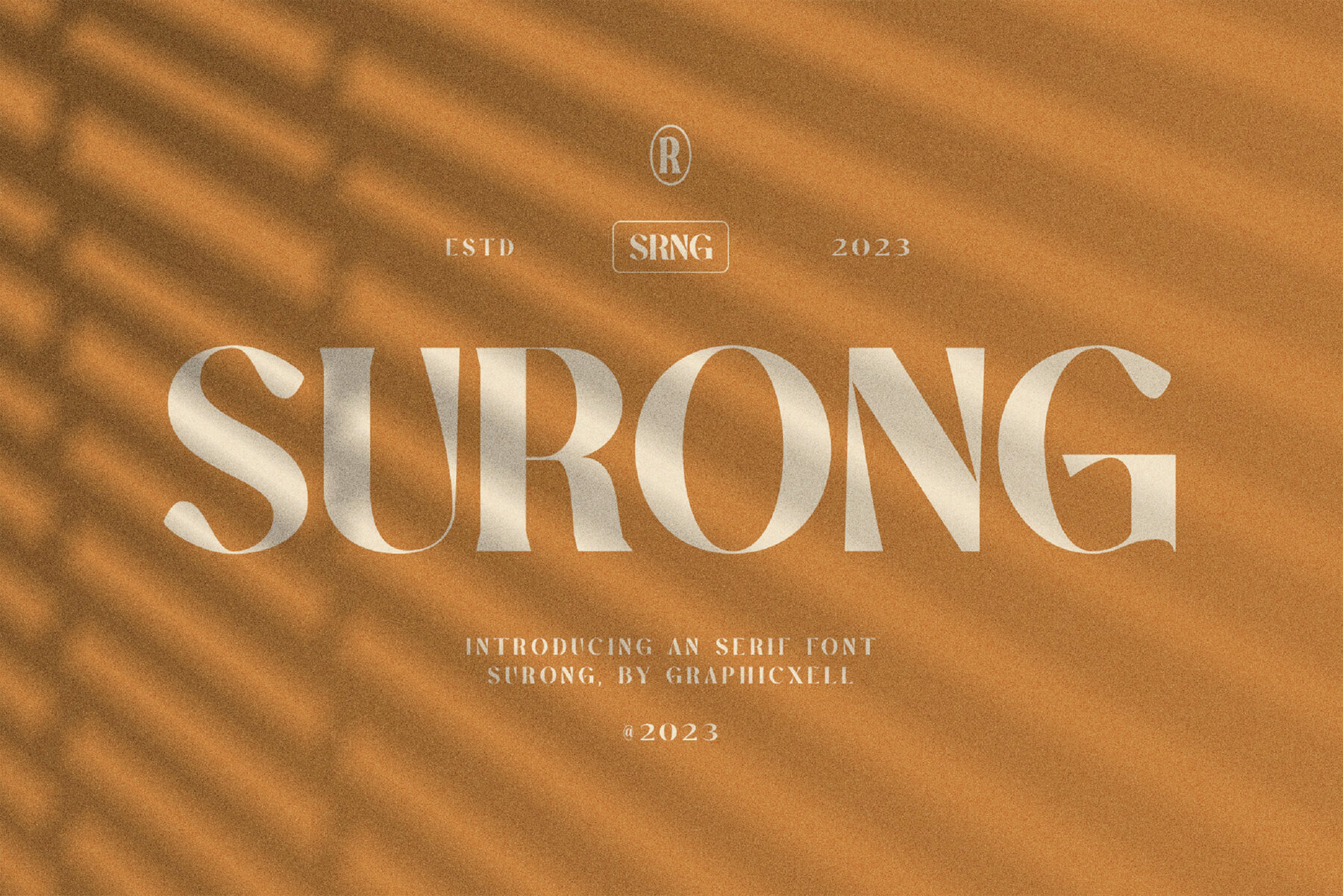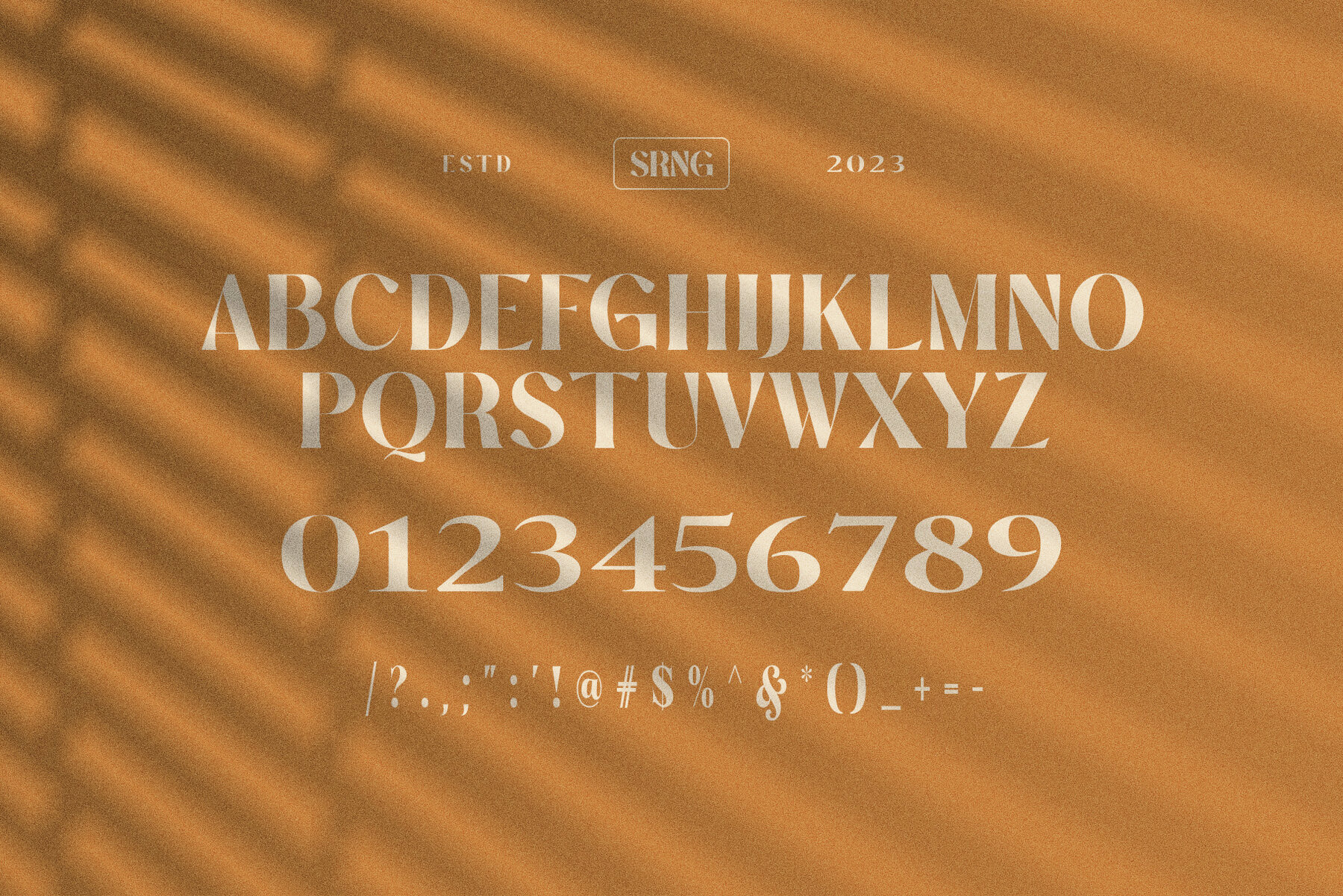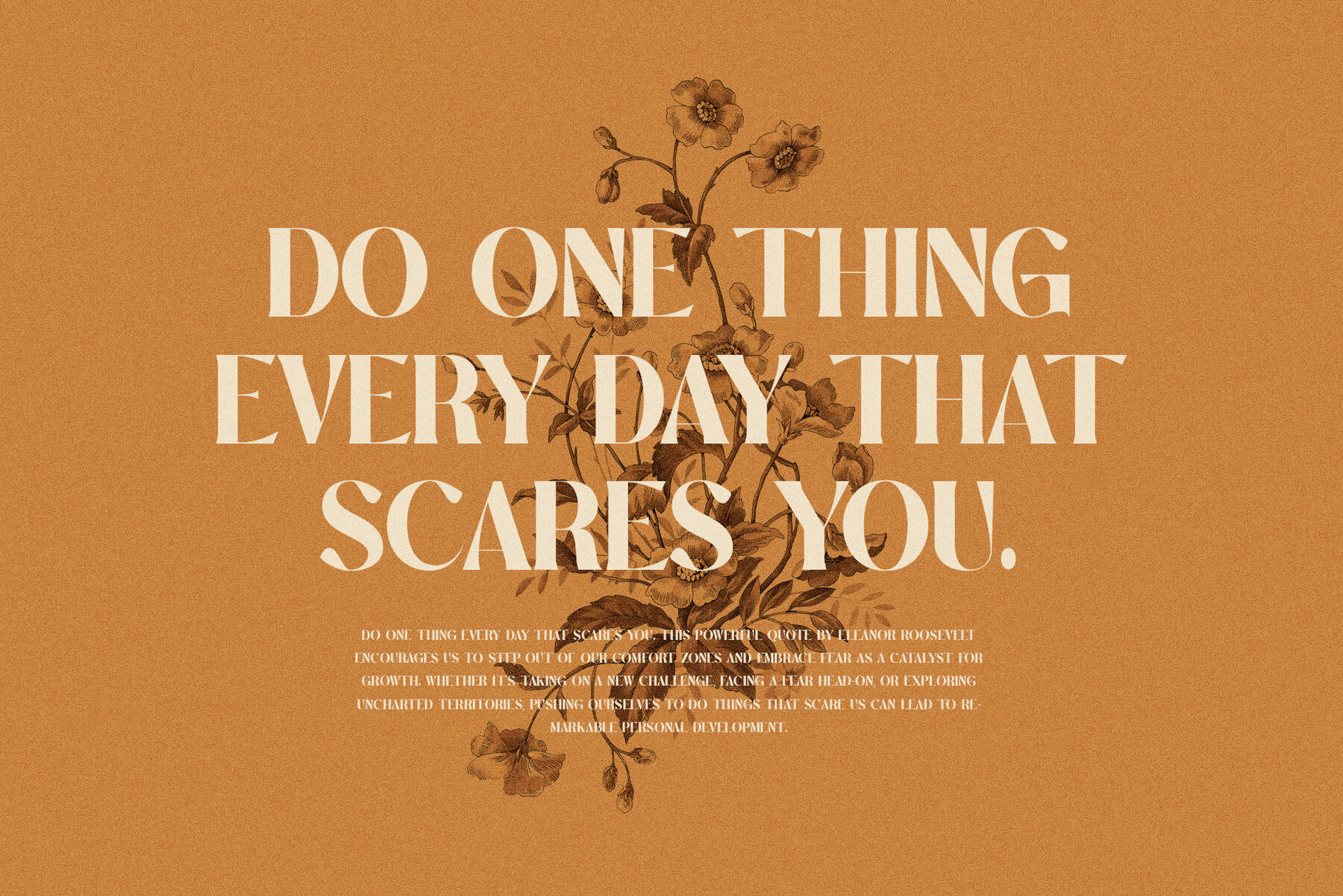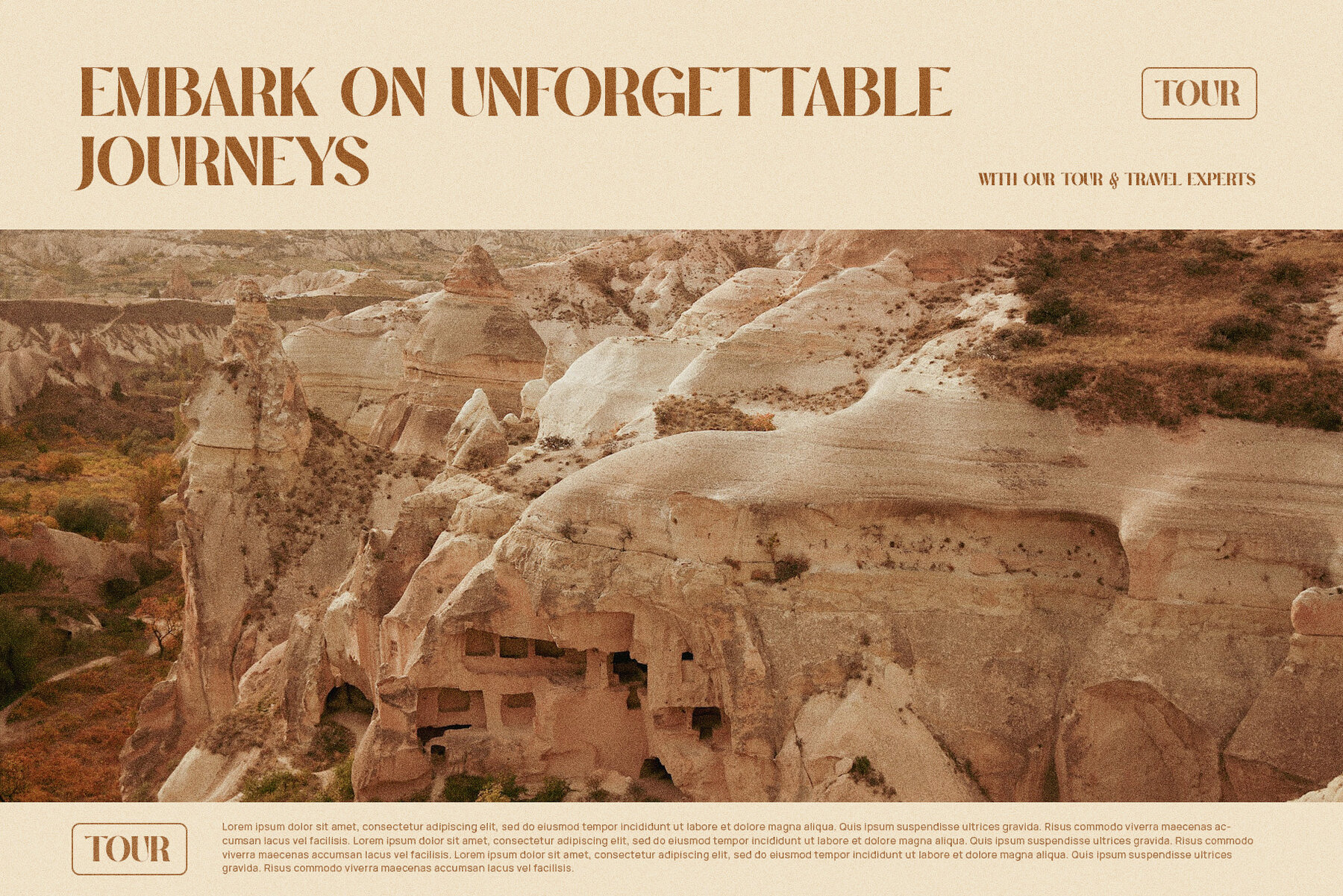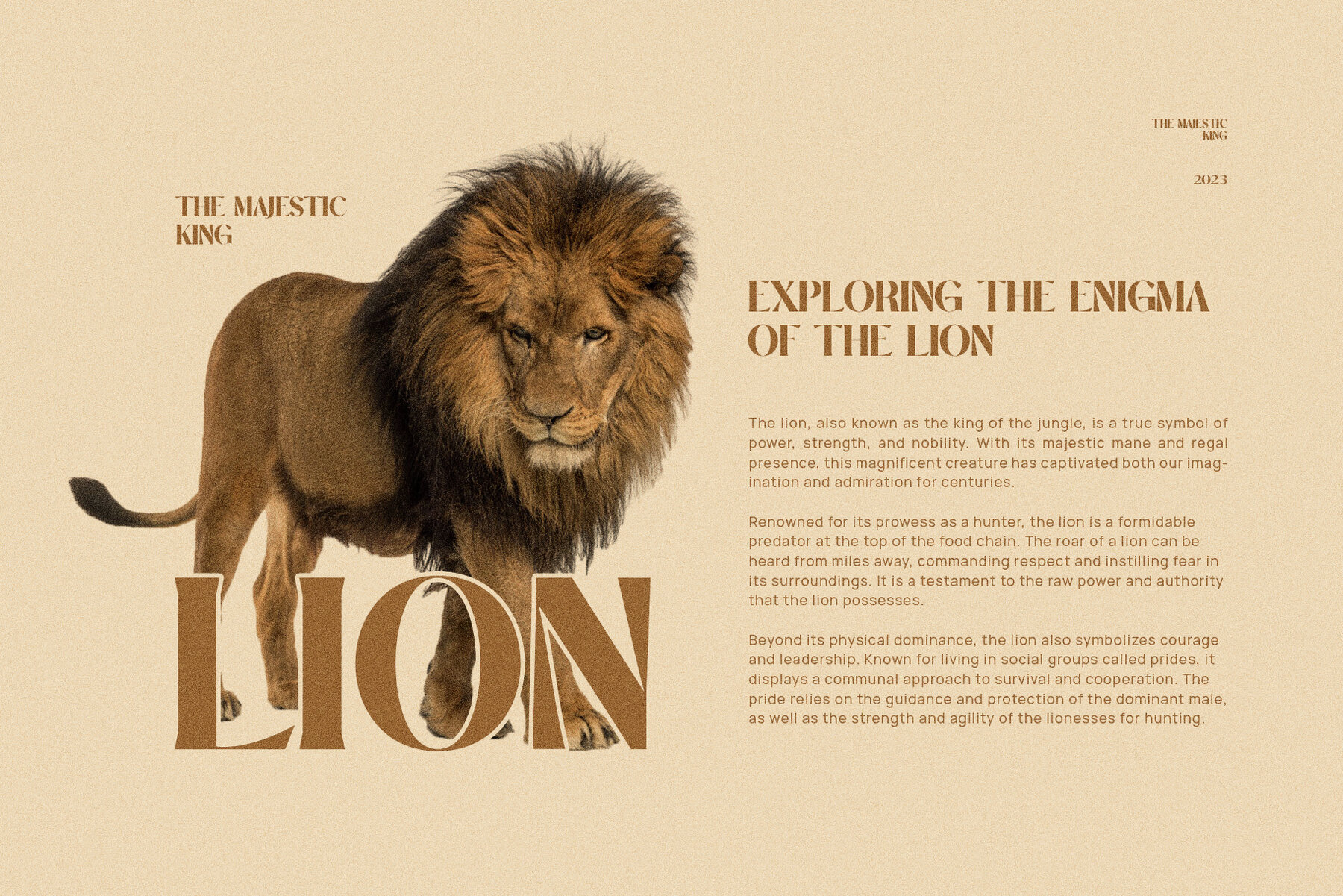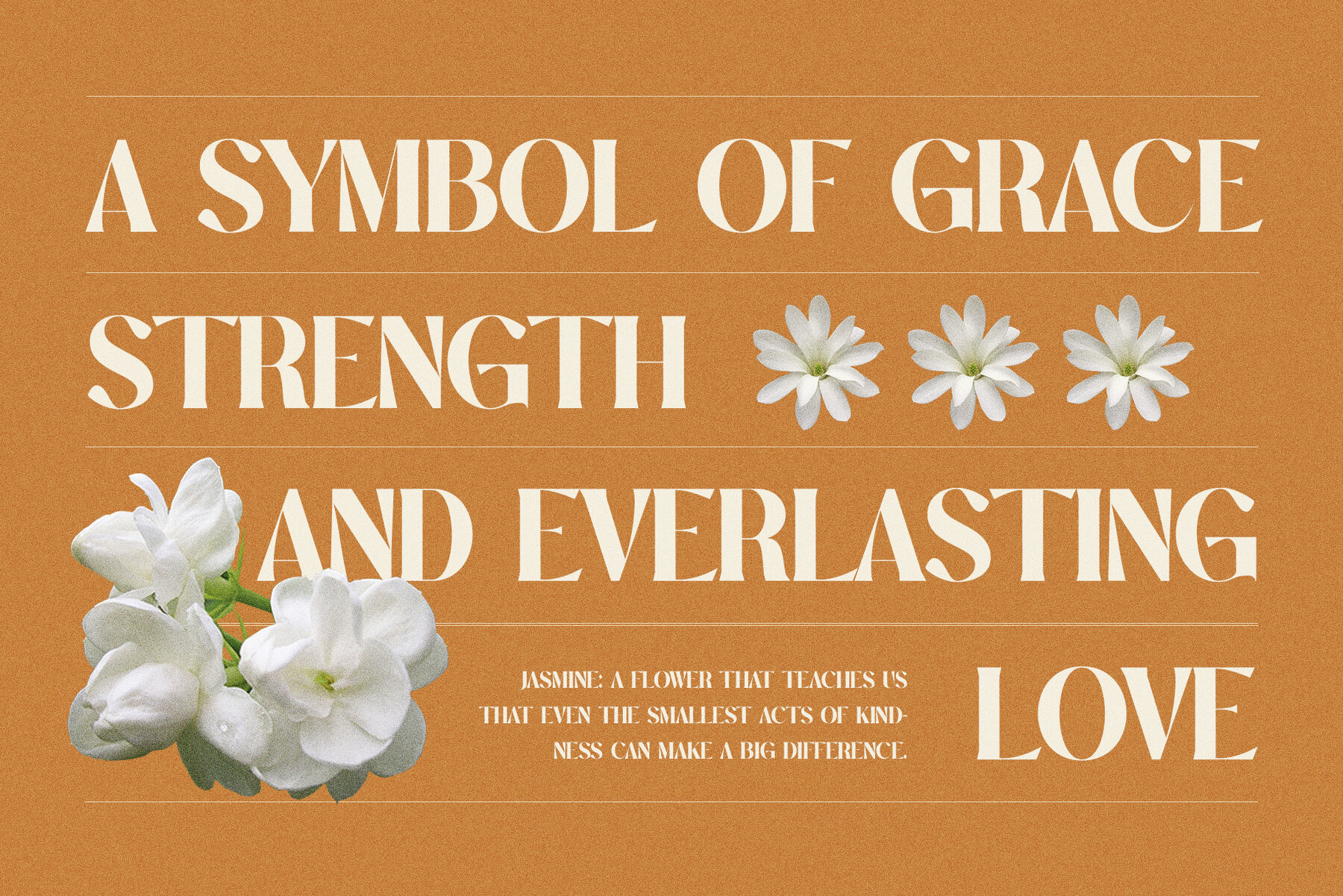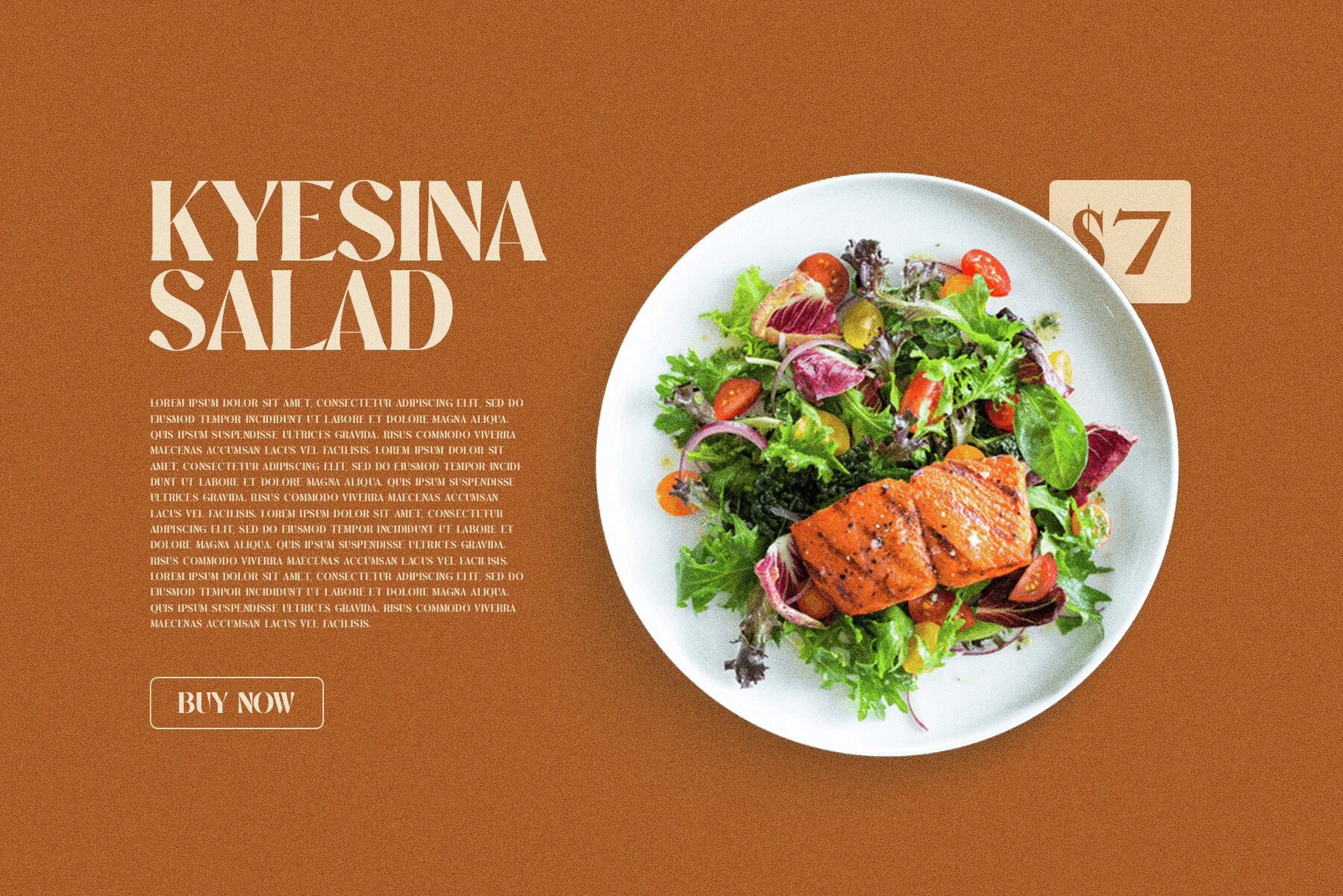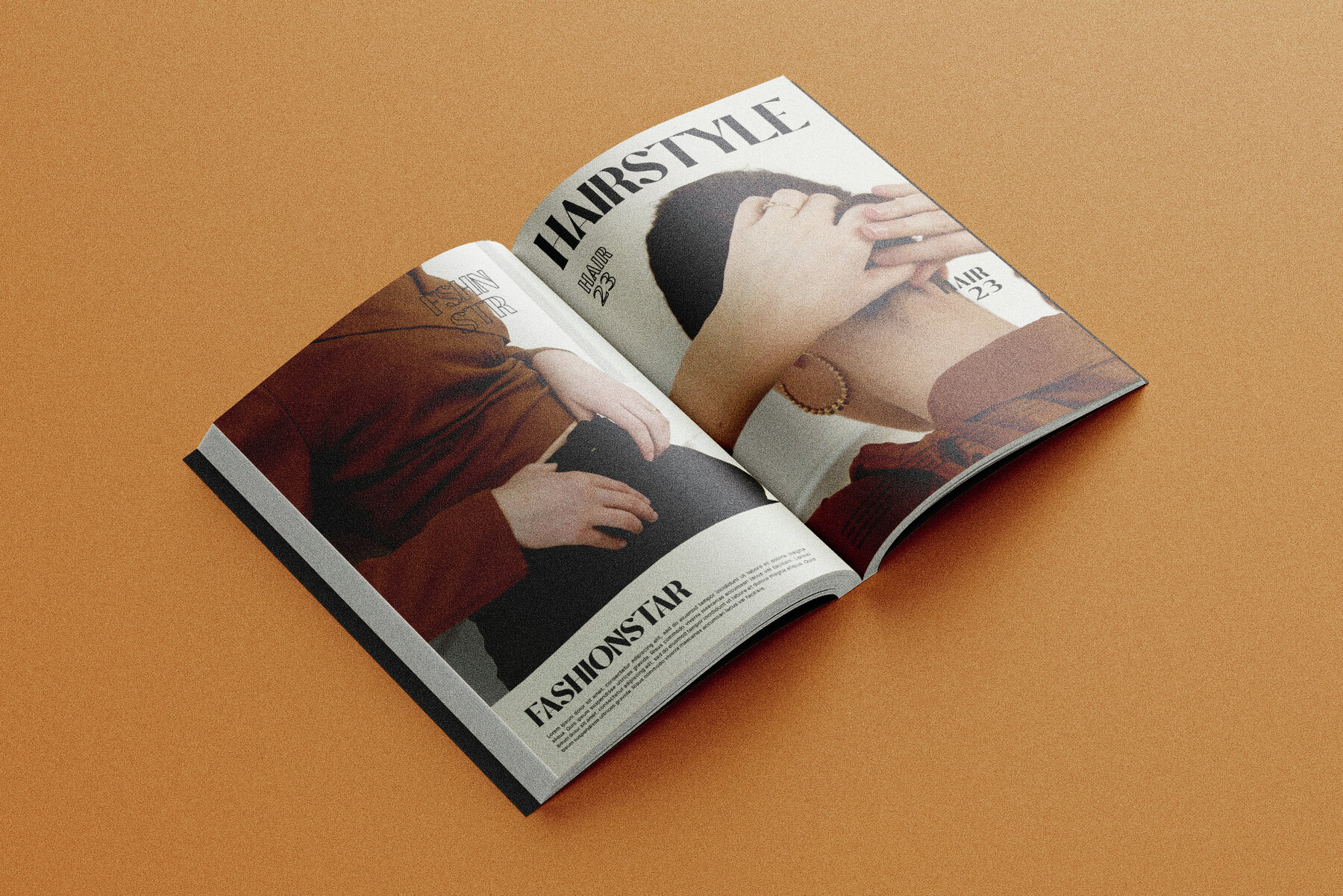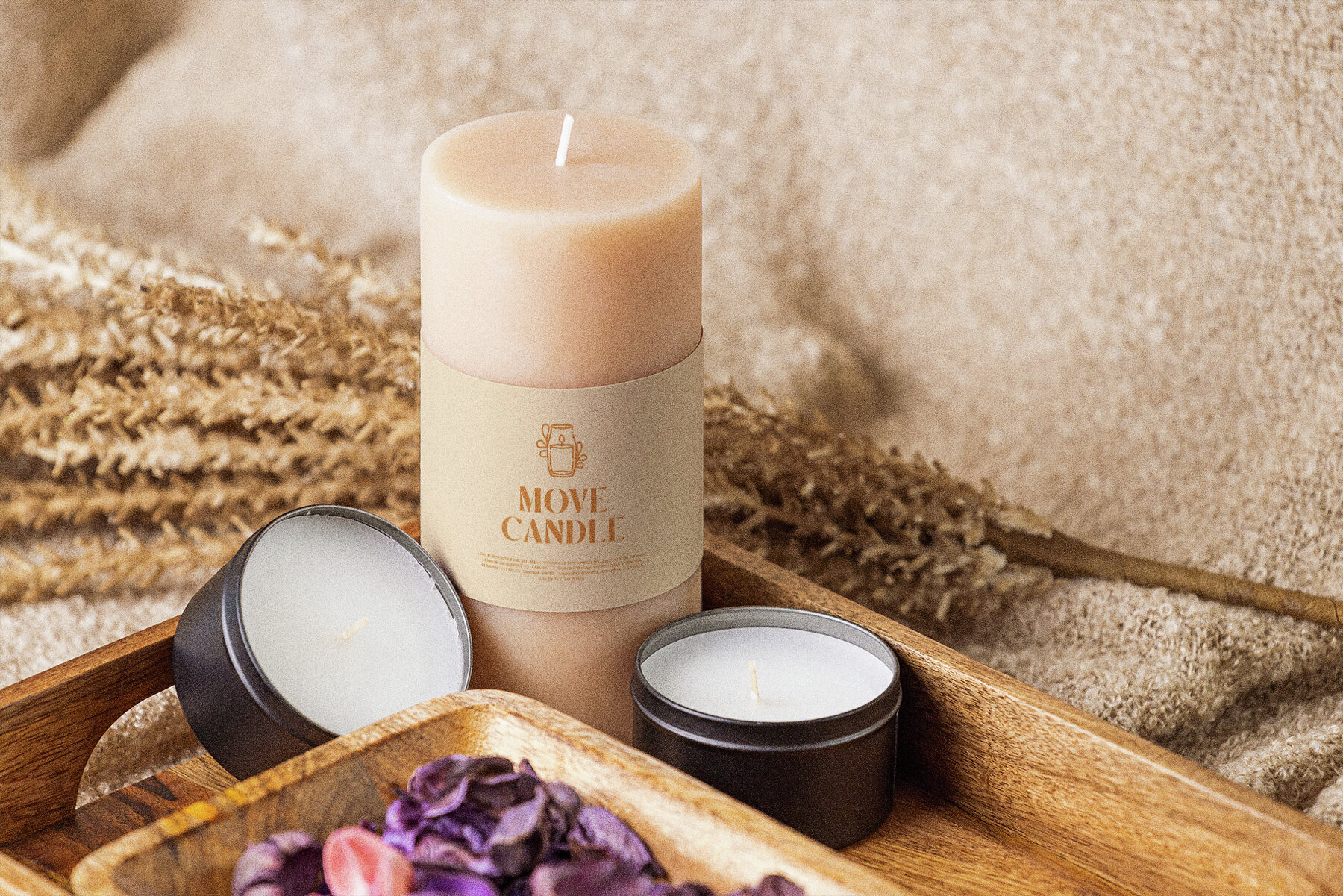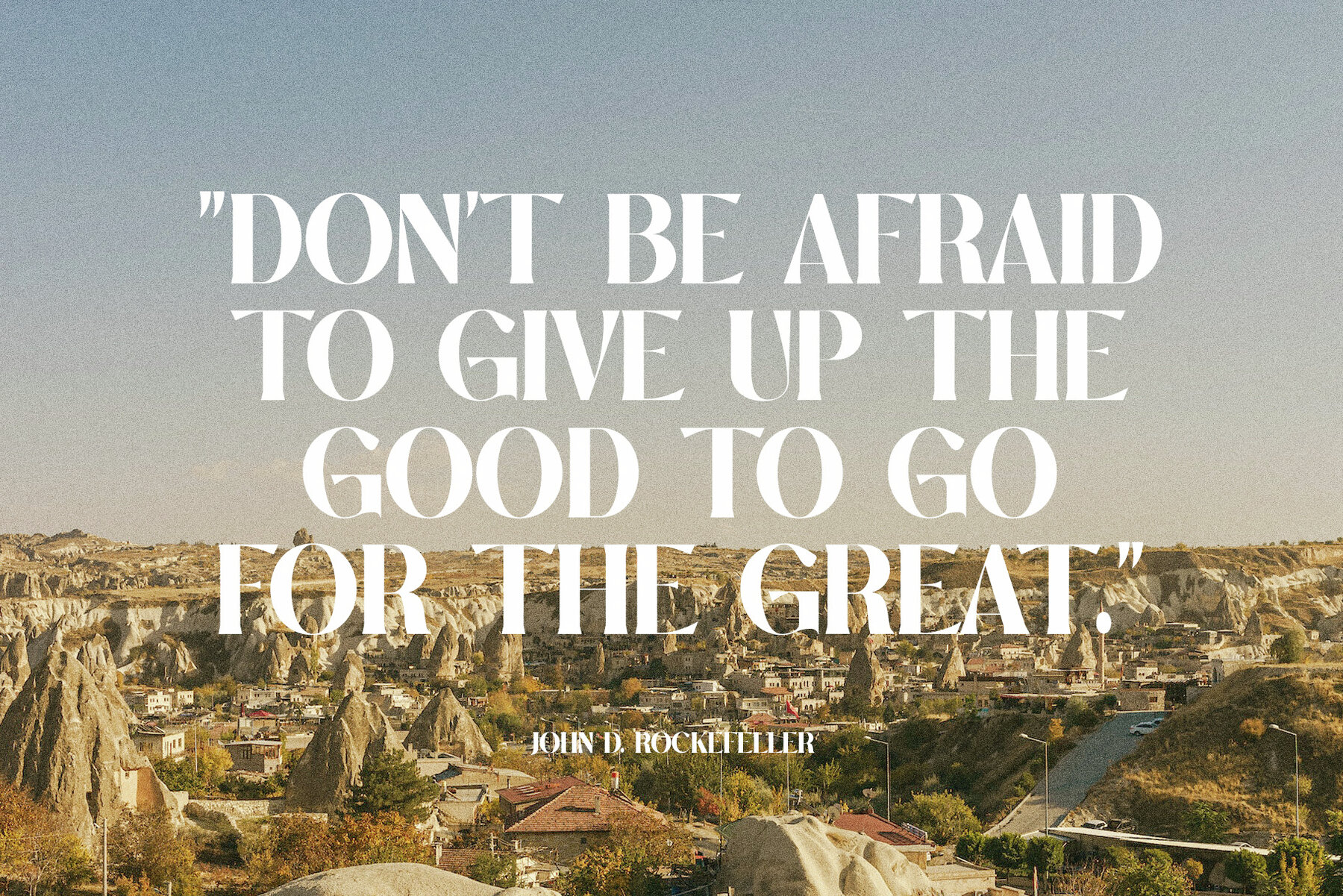
Surong Font
Surong Regular
The Surong typeface offers an elegant serif style combined with a contemporary flair. Its design makes it highly suitable for a variety of applications, including branding projects, logos, wedding designs, social media posts, advertisements, product packaging, product designs, labels, photography, watermarks, invitations, and stationery. With its high readability, Surong ensures clarity and elegance in every use. For the best results, it is recommended to use Surong with design software such as Adobe Illustrator or Adobe Photoshop. If you have any questions, feel free to reach out for assistance.Surong: Elegant Serif with Classy Modern Style